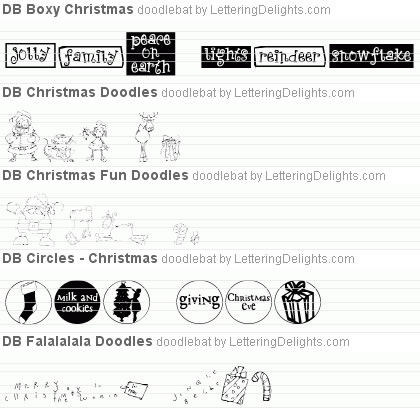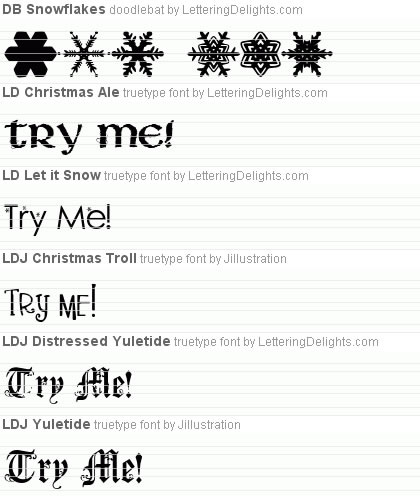
JILLUSTRATION'S
JOLLY
HOLIDAY BUNDLE |
Jillustration Jolly Holiday Bundle |
and traditional Christmas
Fun, these three new alphabet
and Journaling Delight designs are the perfect addition
to your holiday collection. Journaling Delights clip art
sets contain borders, words and clip art images to add
jolly to your holiday.
Cheryl’s Christmas Traditions Bundle |
Holiday gingerbread man,
decorated trees and Santa shine bright in Twas
the Night. Traditional soldiers - and
nutcrackers too
- stand straight and tall in Christmas
Captain. Beary
Christmas brings perfect holiday style to Cheryl’s signature
friend. Journaling Delight clip art sets for each design
include title and photo boxes, toppers, corners, tags and
darling adornments.
DoodleBat Christmas Bundle |
Even DoodleBats are
in the holiday spirit with an all new bundle of holiday
cheer. DoodleBats work just like a font to give you creative
options for seasonal accents on cards, favors, gift tags,
invitations and more.
Snowy Noel Font Bundle |
You can never have too many
fonts and the Snowy
Noel Font Bundle will give you even
more ways to spread holiday cheer across all of your holiday
projects. These five new traditional fonts and
one new DoodleBat bring the style of season to your keyboard.